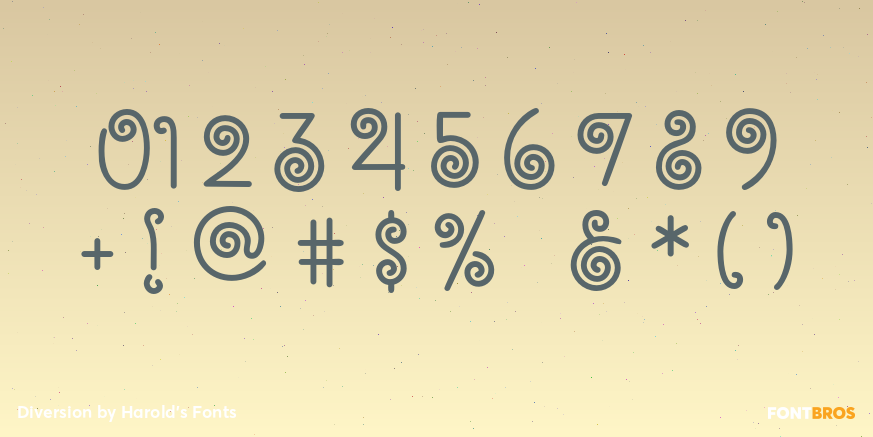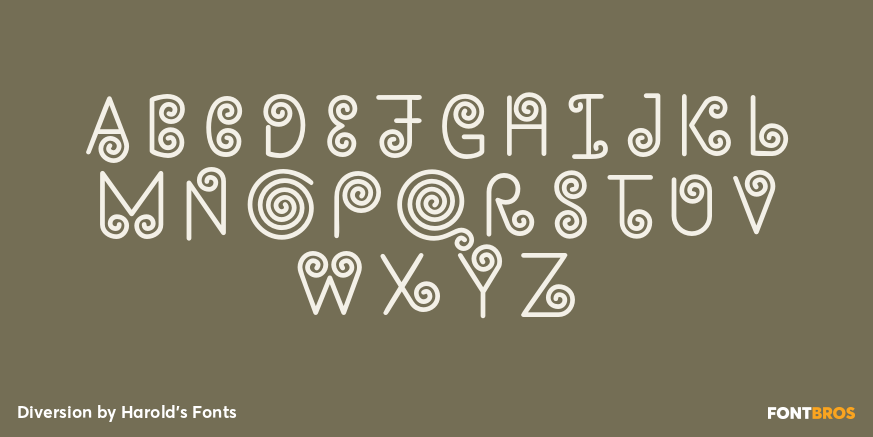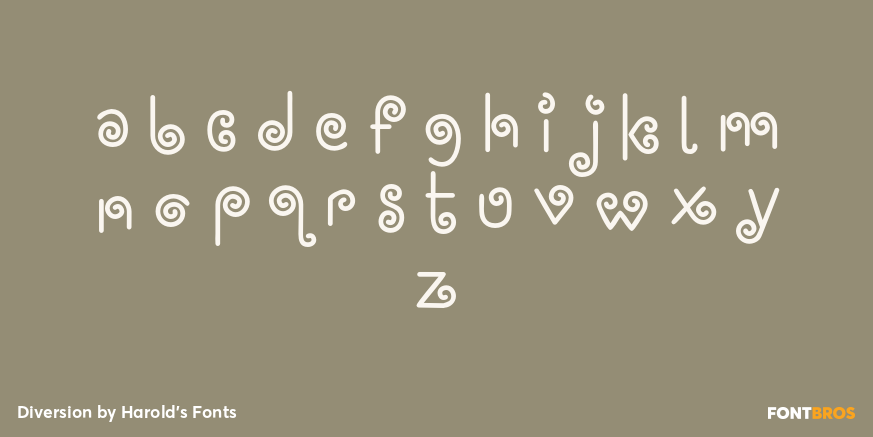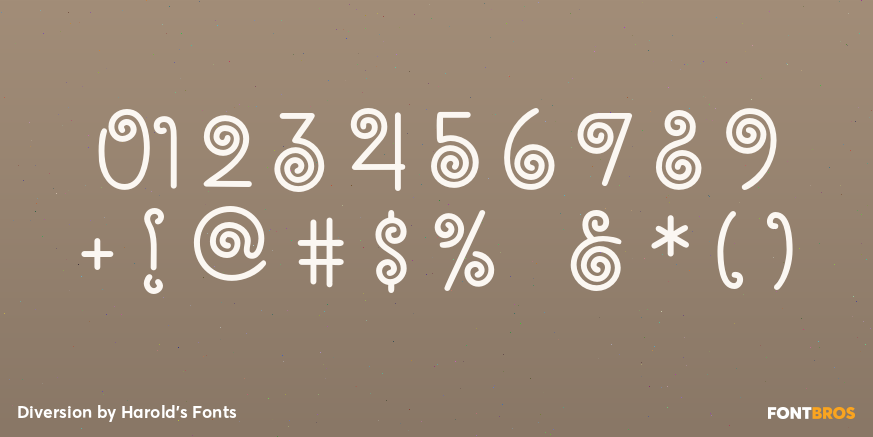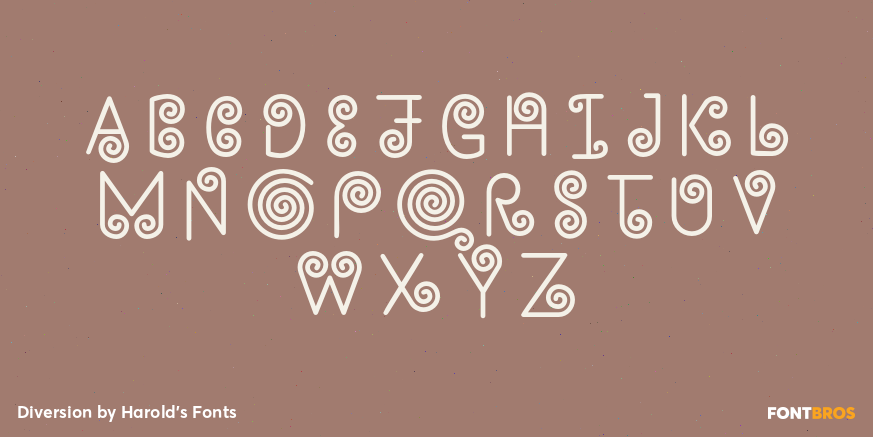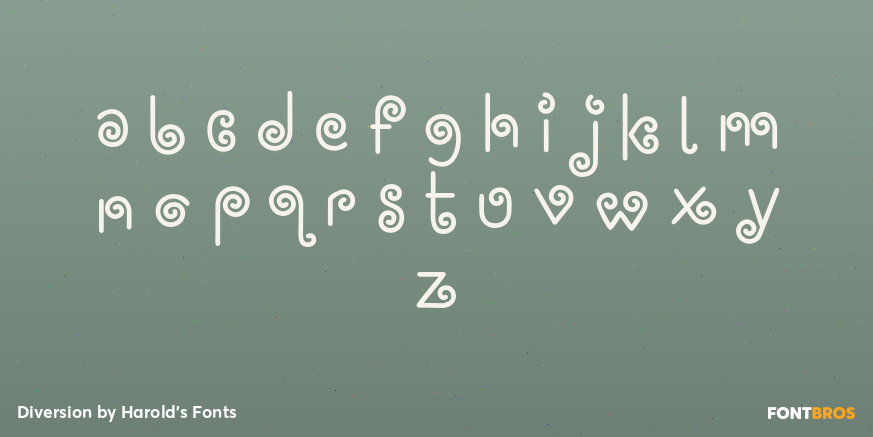
Diversion
Font Family by Harold's Fonts
Diversion is a little amusement, all swirls and spirals. It was inspired by the hand-lettered logo of an Italian restaurant in Mexico. Could add a lot of whimsy if used carefully, might cause dizziness if overused.